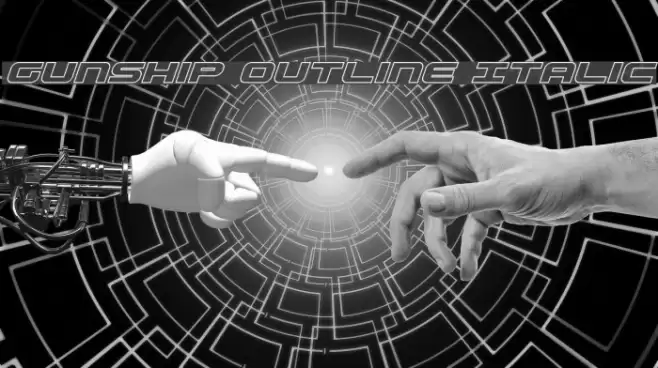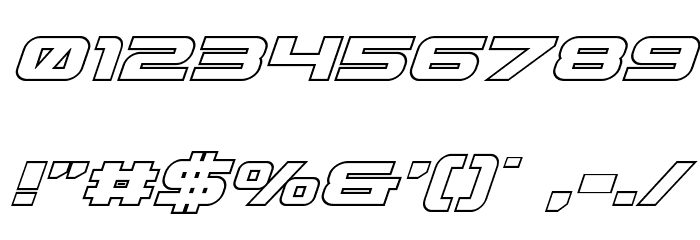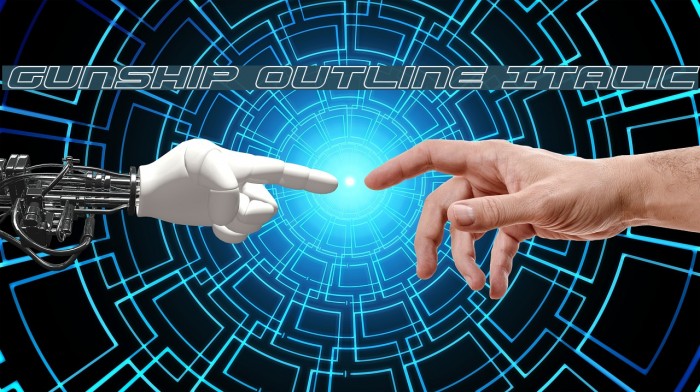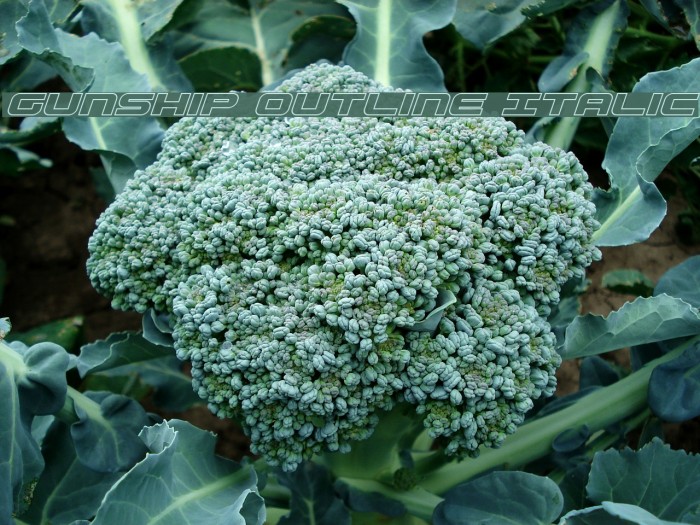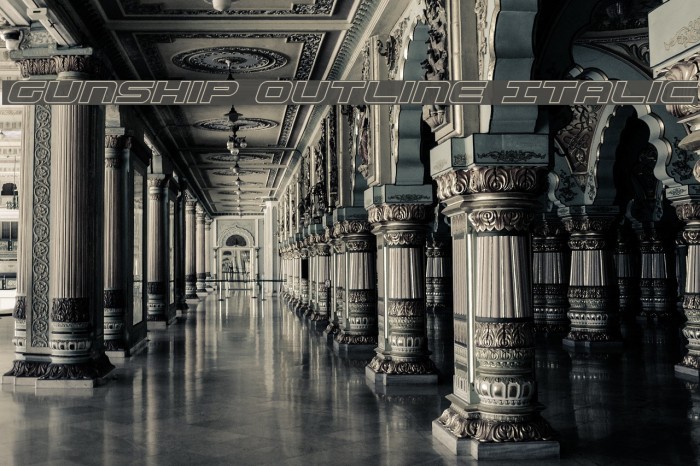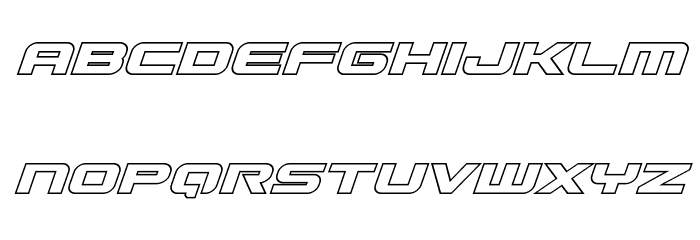
Gunship Outline Italic Font
Gunship Outline Italic Description
This font features a futuristic and dynamic outline style with a slanted, italicized form. The characters are bold and geometric, with sharp angles and clean lines that create a sense of movement and speed. The uppercase and lowercase letters maintain a consistent style, with the uppercase being slightly larger and more pronounced. Numbers and special characters follow the same design principles, ensuring uniformity across all glyphs. The outline effect adds a layer of depth and dimension, making it ideal for eye-catching designs.
A futuristic, italicized outline font with bold, geometric characters from Uncategorized fonts.
- Proposed Projects: Ideal for sci-fi themed projects, video game titles, posters, and branding that requires a modern and dynamic look.